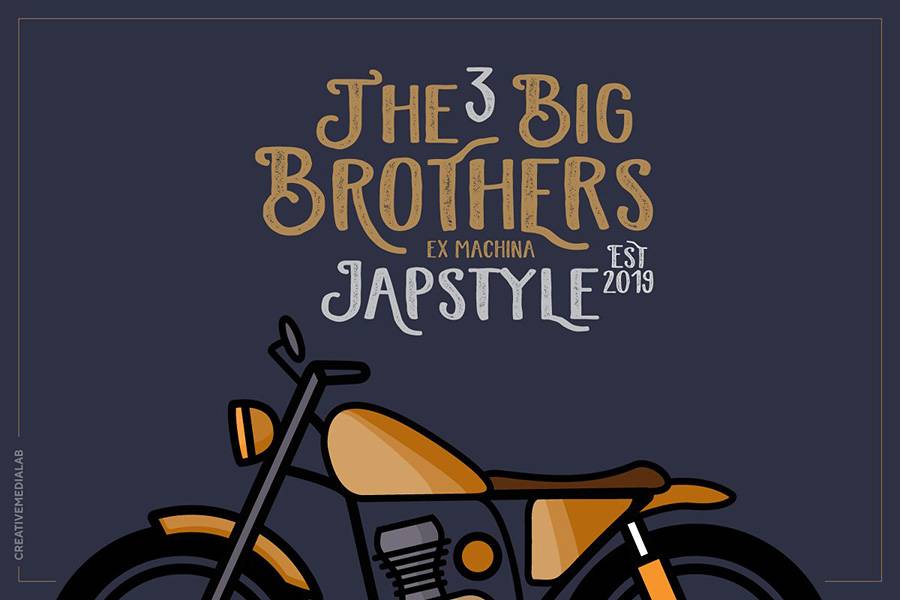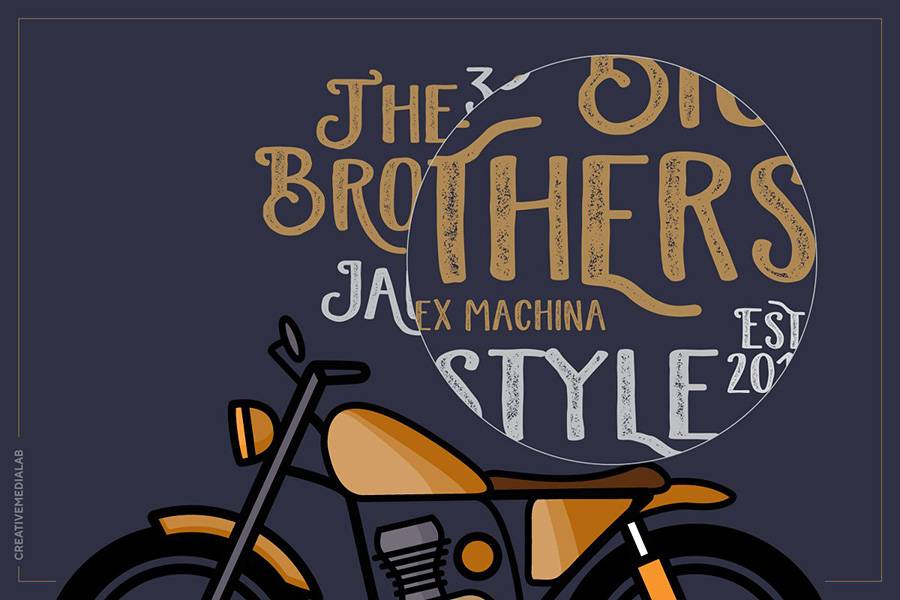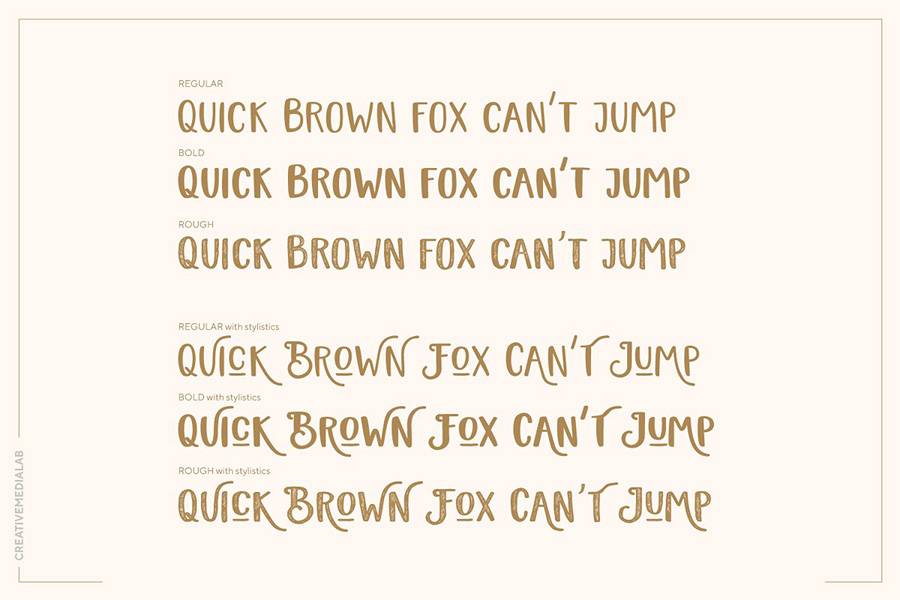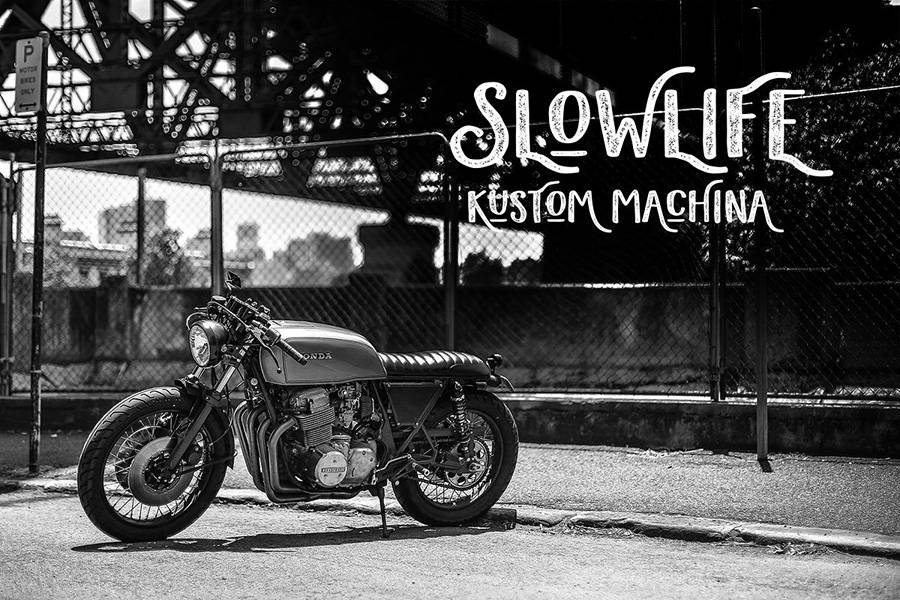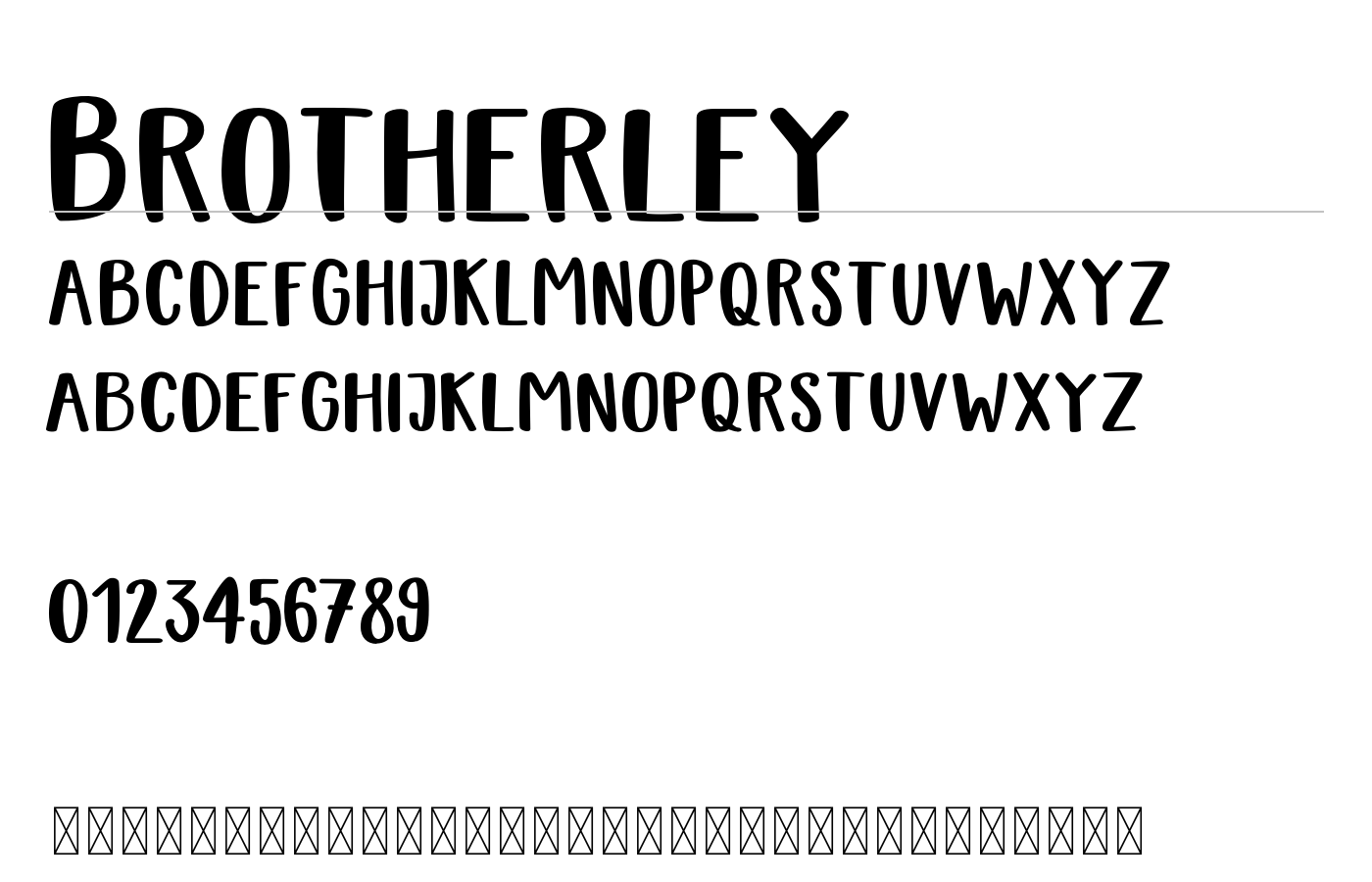
Brotherley Typeface Demo is a playful and informal sans serif font with a hand-drawn feel. Its tall, slightly irregular letterforms and moderate weight give it a friendly, approachable personality, making it ideal for children's books, casual branding, and creative projects that want to convey warmth and charm. This font works best in headlines and display uses, where its unique style can add character and energy without sacrificing readability.
Brotherley Typeface Demo
About Brotherley Typeface Demo
| Designer | Kadek Adi Mahardika |